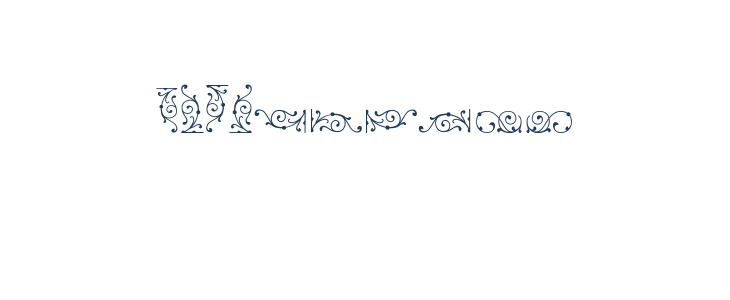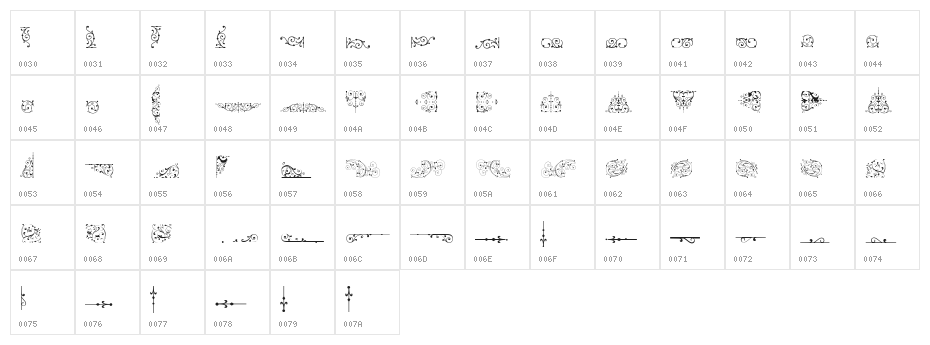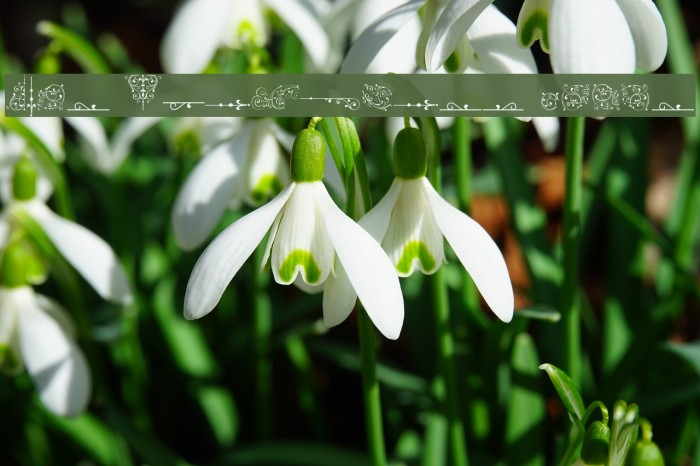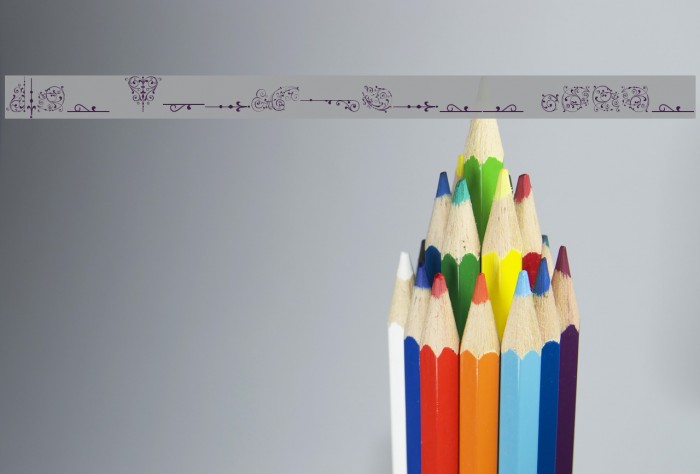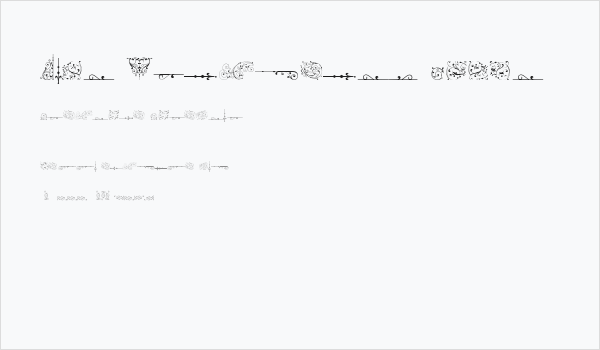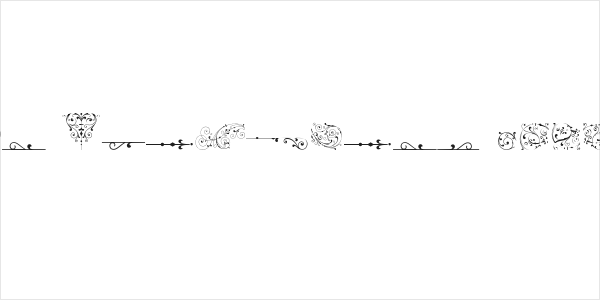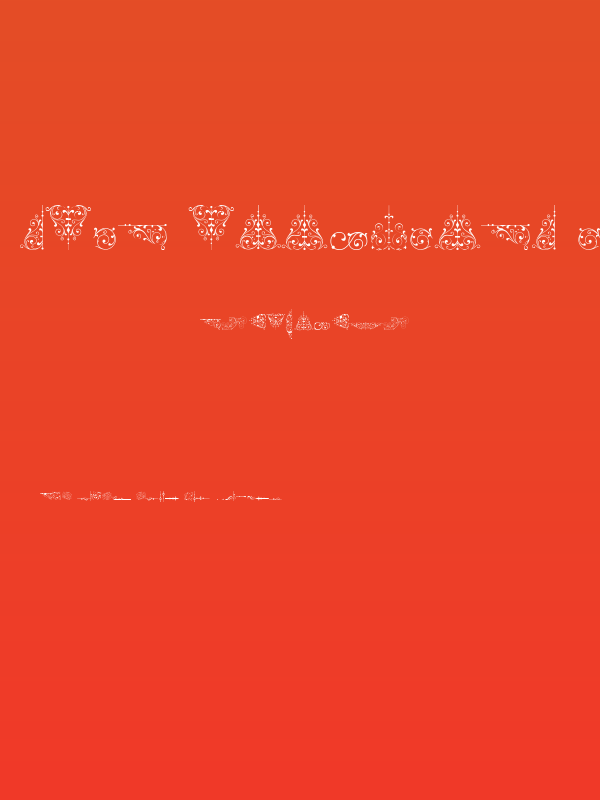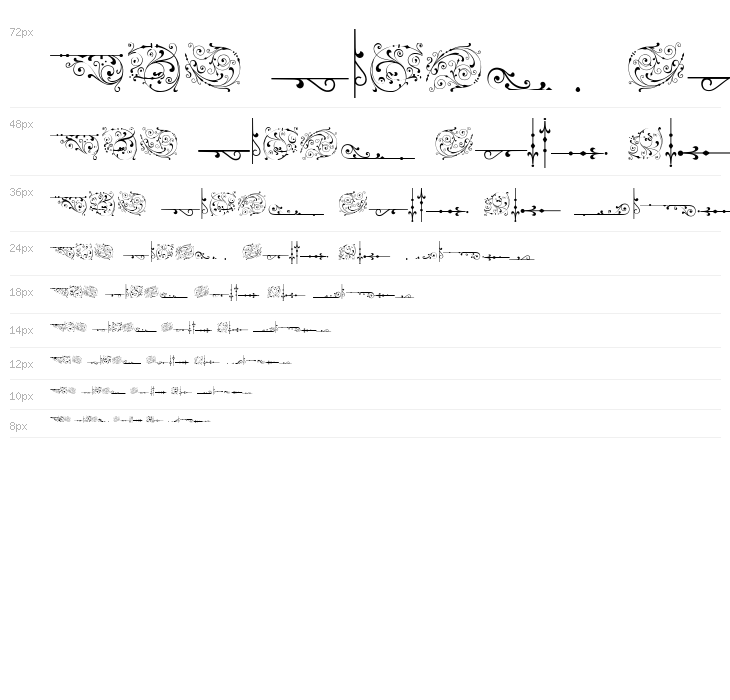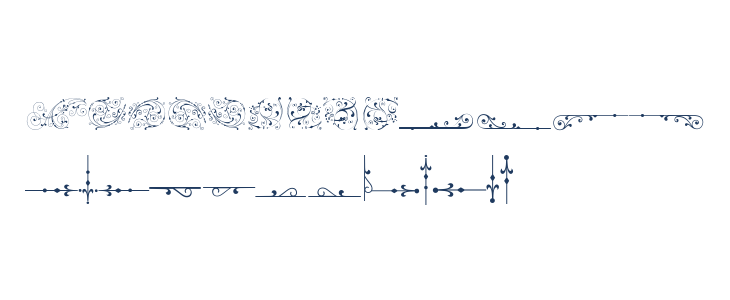
Soft Ornaments Eight Font
Soft Ornaments Eight Description
This is not a traditional font but rather a collection of decorative ornaments and flourishes. Each element is intricately designed with swirling patterns and elegant curves, reminiscent of vintage or baroque styles. These ornaments can be used to embellish text, create borders, or add decorative elements to various design projects. The intricate details and flowing lines make them suitable for projects that require a touch of elegance and sophistication.
| Use Case | Decorative elements, Borders, Embellishments |
| Proposed Projects | Ideal for wedding invitations, vintage-themed designs, decorative borders, and artistic embellishments. |